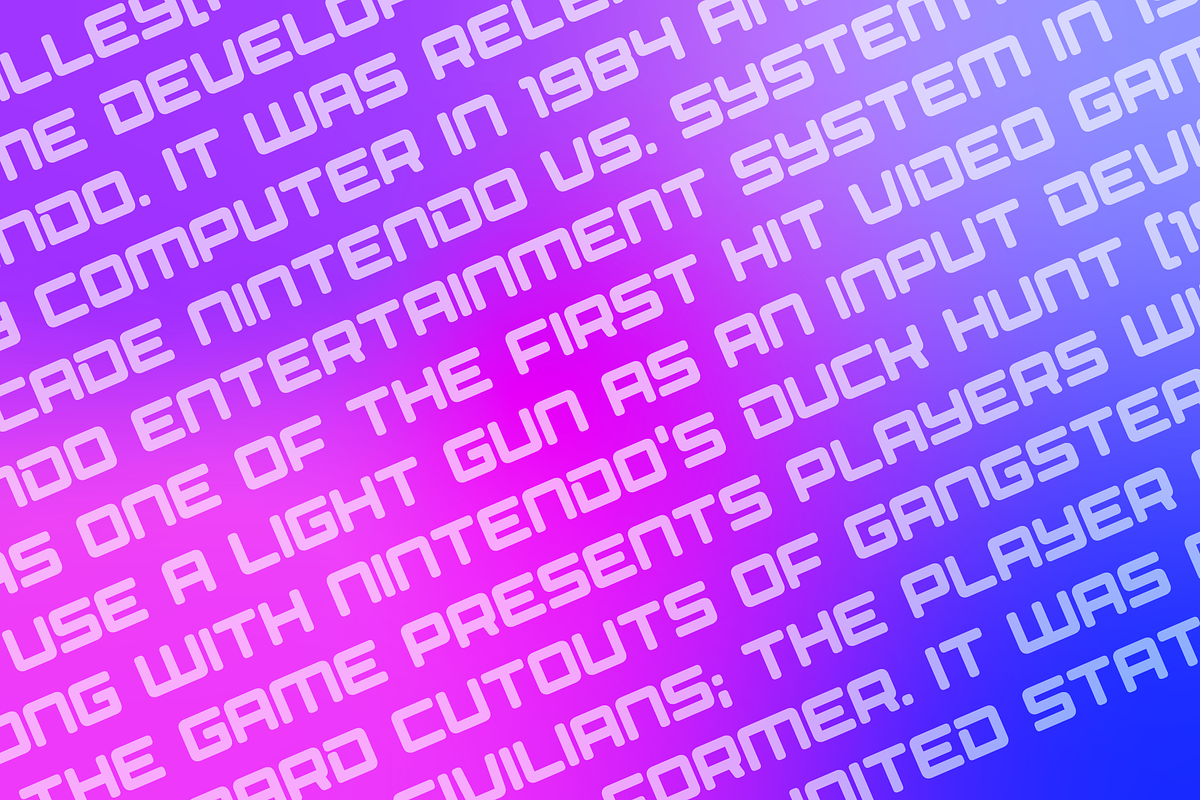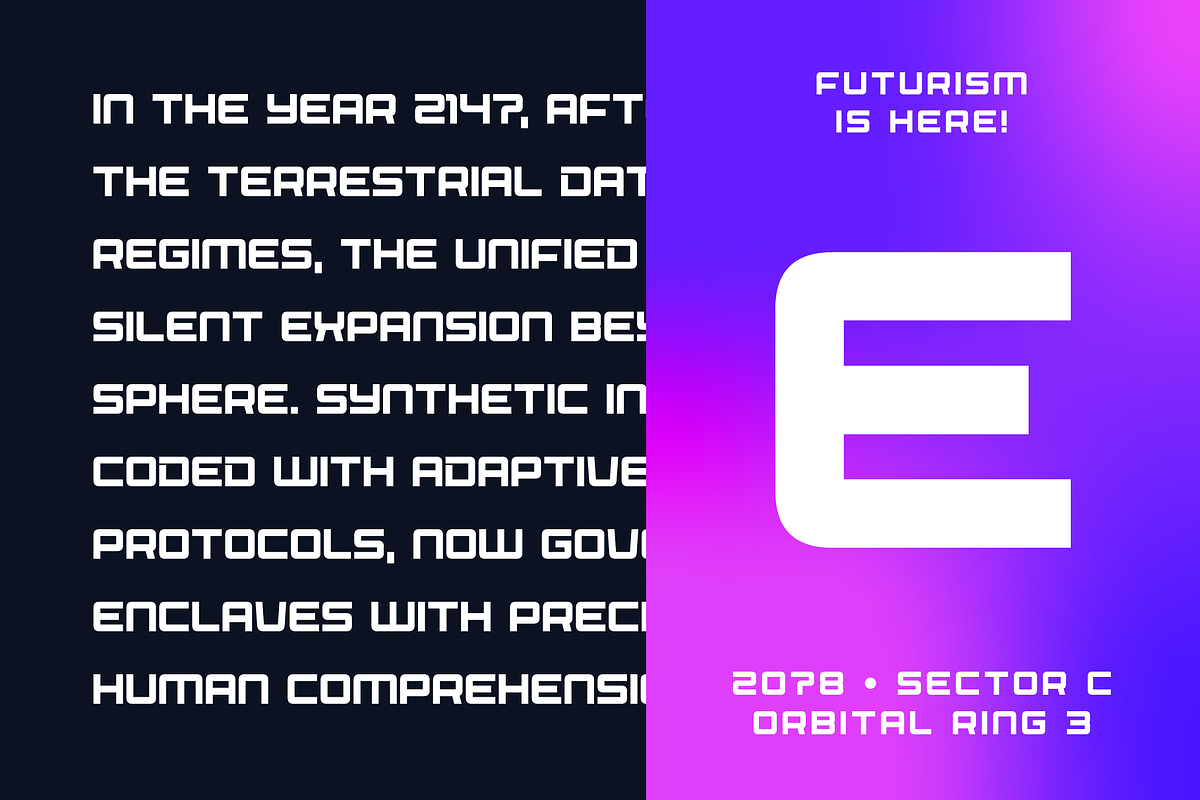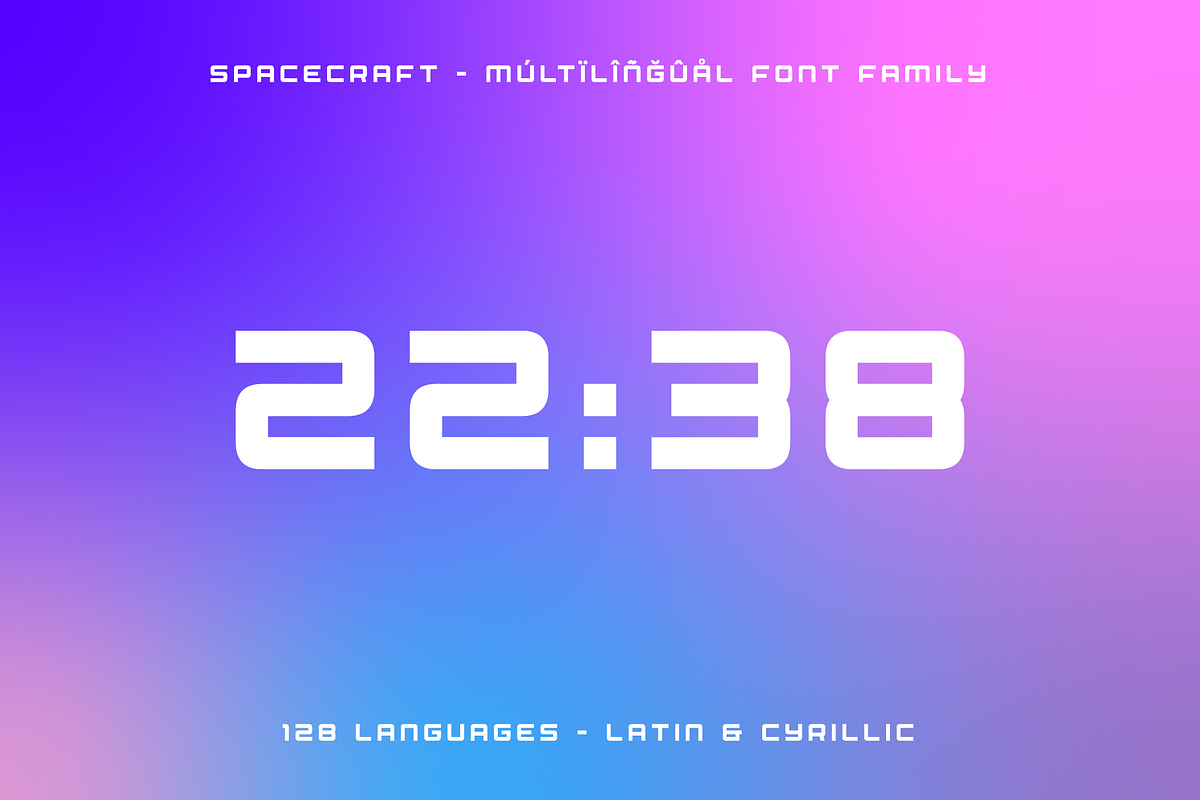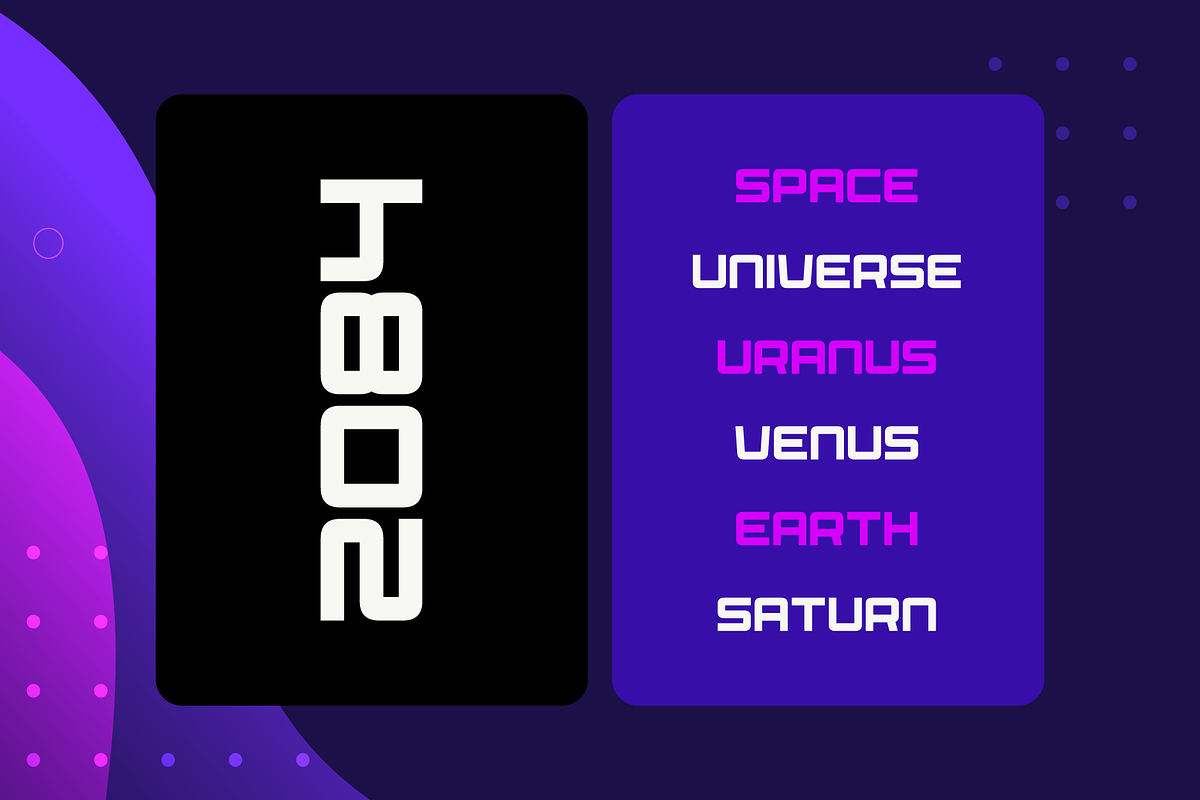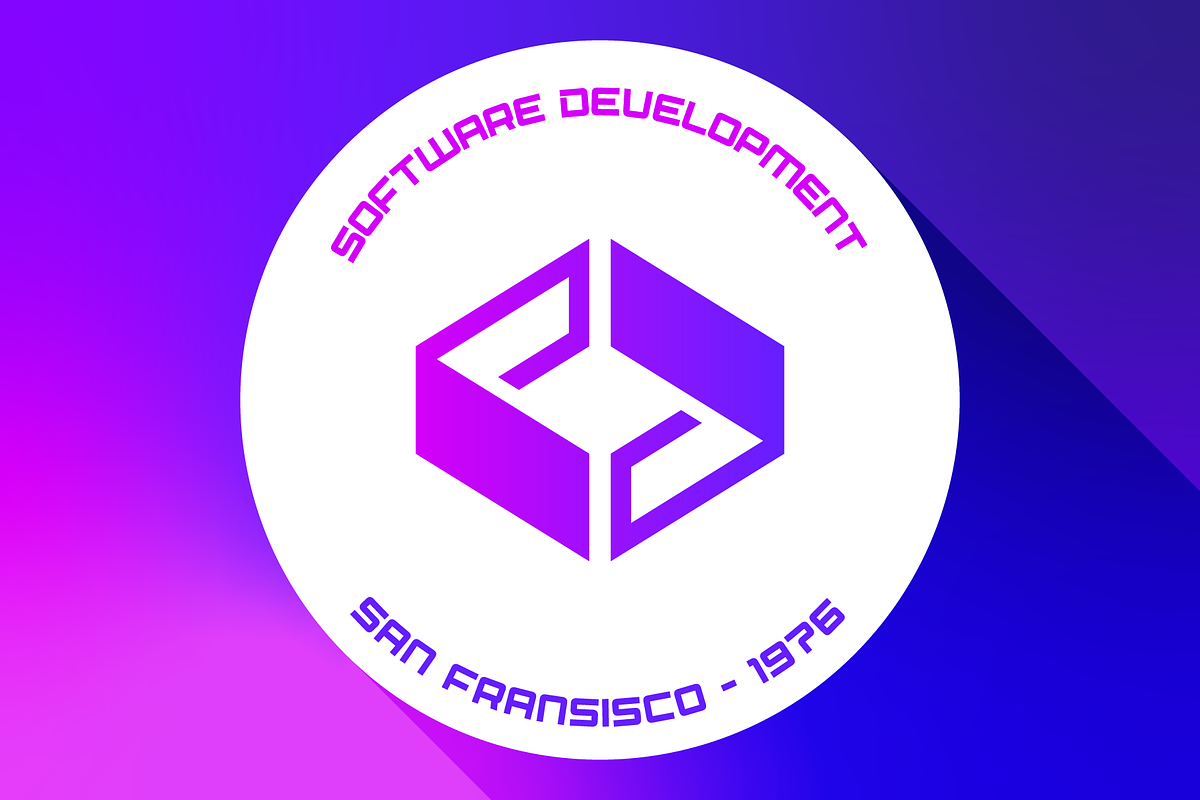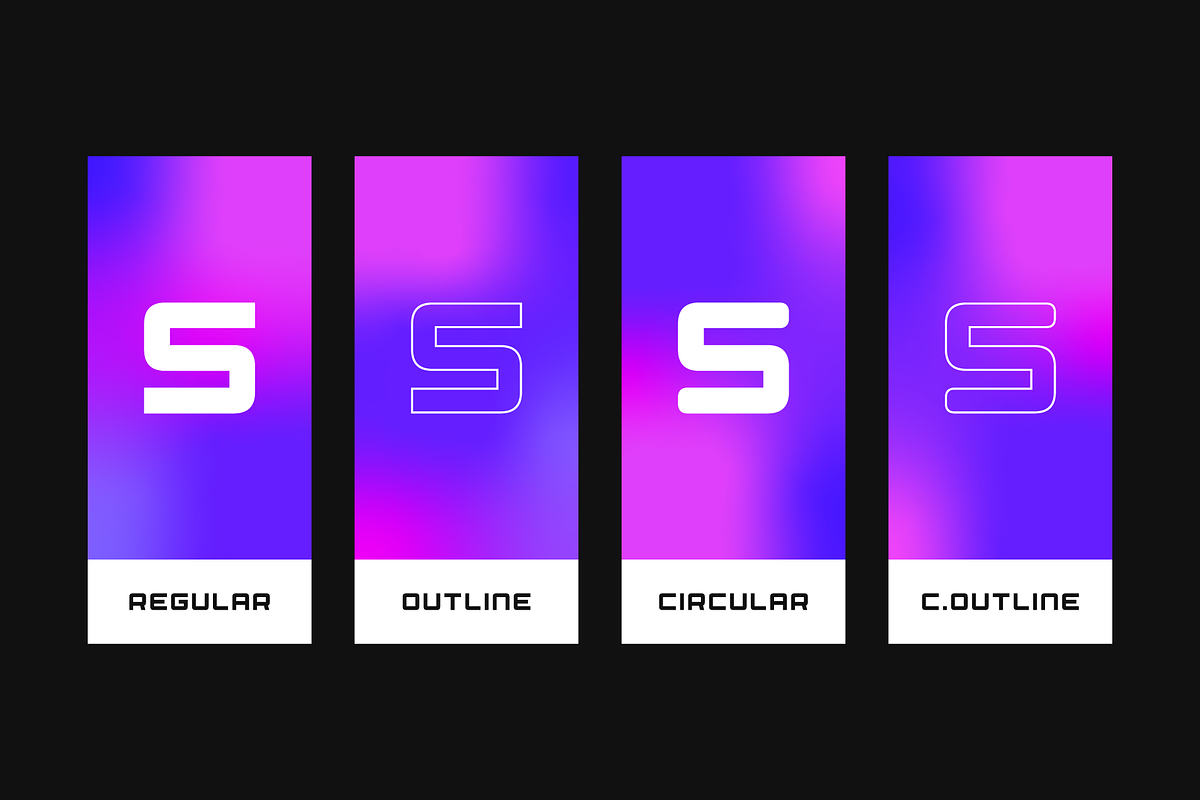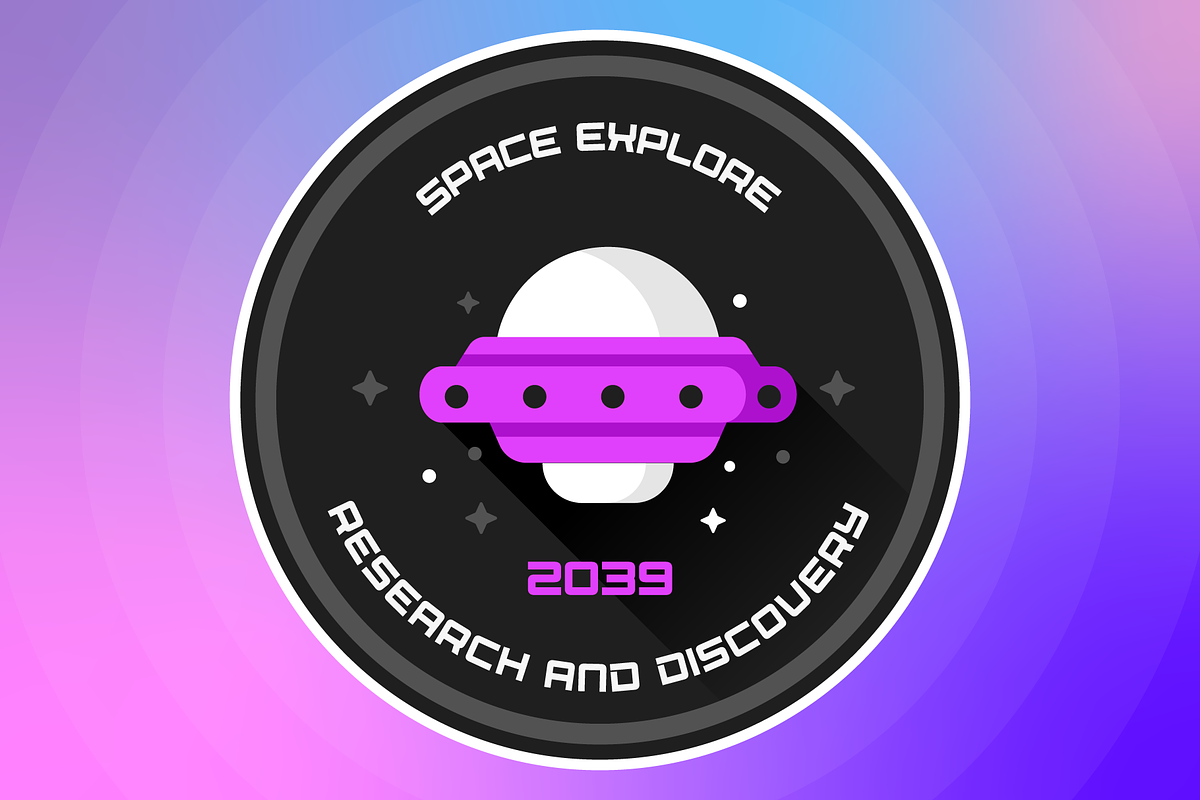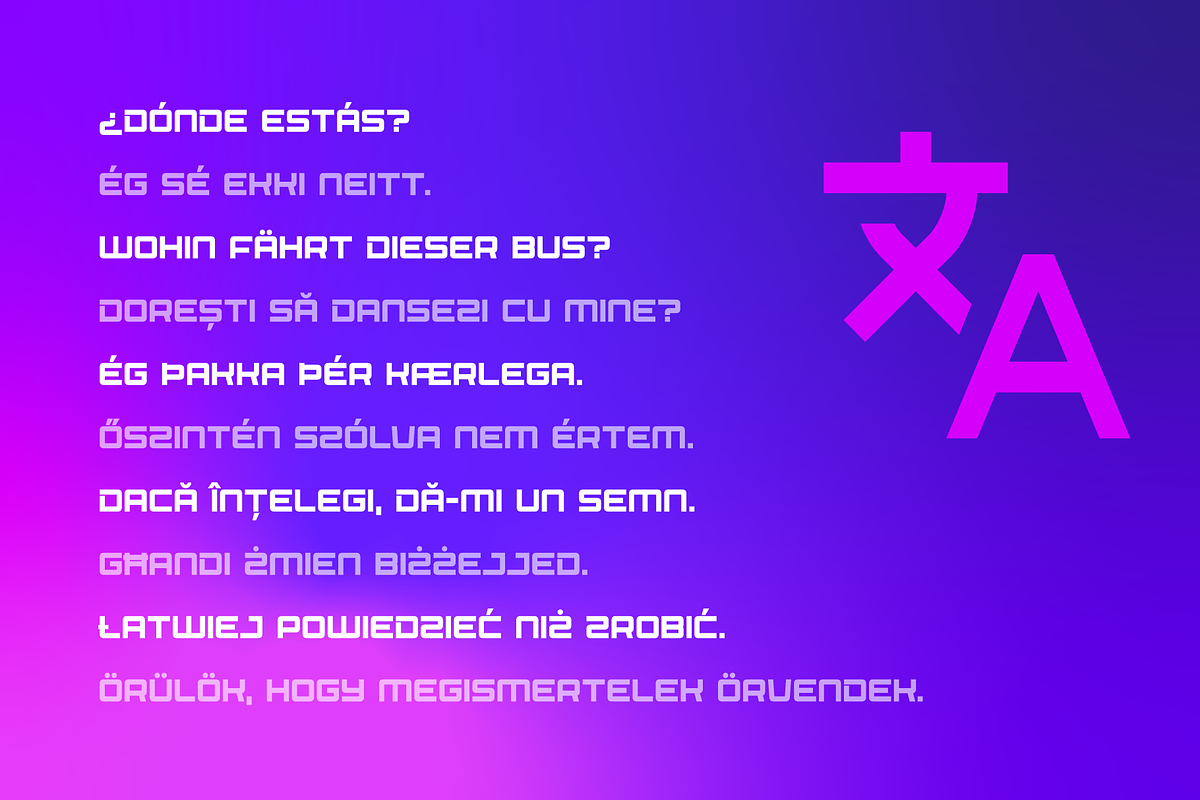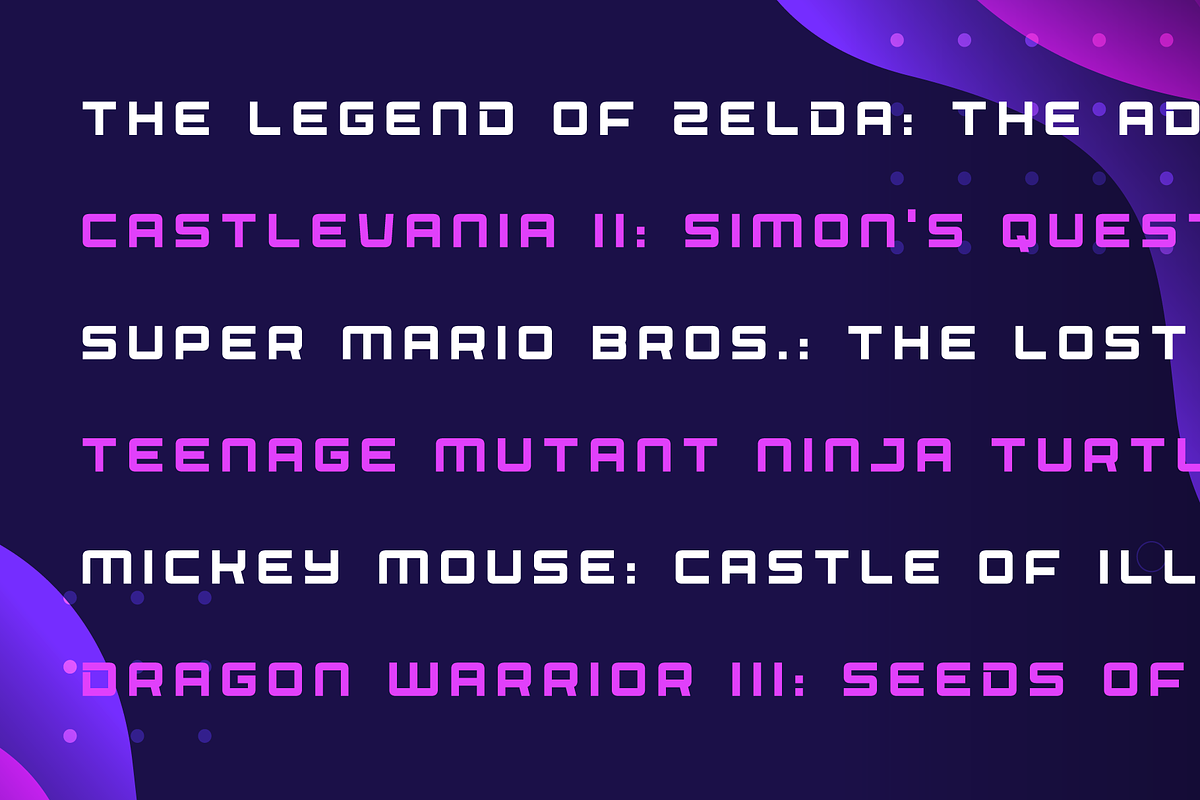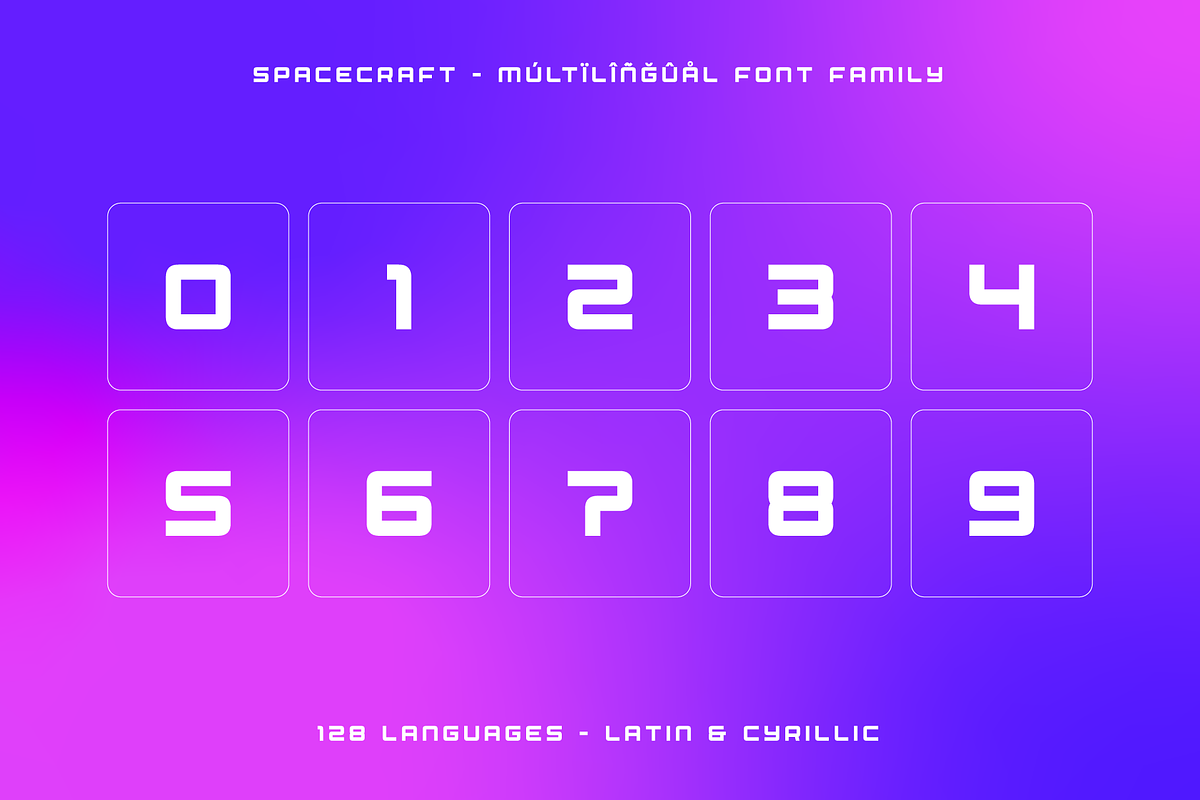
Spacecraft — A Futuristic Typeface
Meet Spacecraft, a forward-thinking type family designed for creatives who demand impact, innovation, and versatility.
Blending futuristic geometry with refined roundness, Spacecraft offers an expansive library of 58 meticulously crafted styles—ranging from clean, technical forms to textured, eroded, rimmed, inline, brush, and rounded variations.
Whether you’re designing sleek UI systems, cinematic sci-fi titles, cutting-edge branding, or expressive display typography, Spacecraft gives you the freedom to explore countless visual moods within one cohesive type system.
Why Choose Spacecraft?
- 58 Styles Included Angular, Circular, Rounded, Rough, Brush, Inline, Rimmed, Pencil, Noise, Eroded, Outline—plus italics for every style.
- Futuristic + Rounded DNA Sharp geometry and engineered cuts meet smooth curves for a modern, technical aesthetic.
- Built for Flexibility Perfect for tech branding, gaming, posters, motion graphics, signage, product design, and UI/UX.
- Optimized Performance Designed for clarity and consistency across print, digital, and large-scale displays.
- 128 Language Support Extensive Latin and Cyrillic coverage ensures global usability.